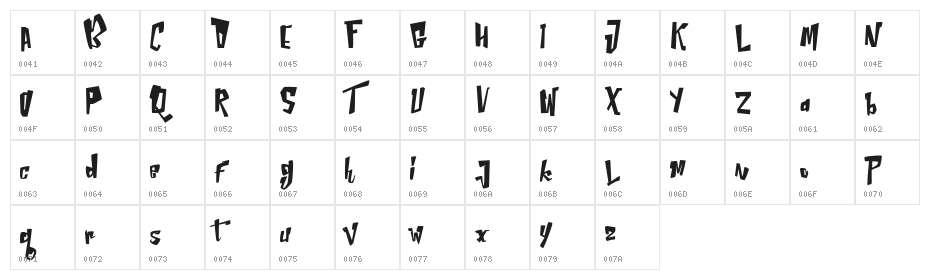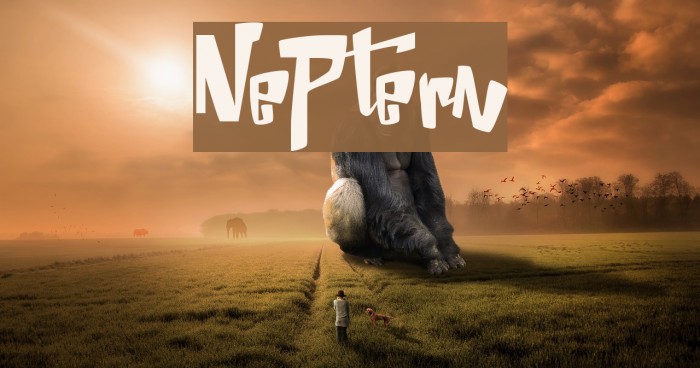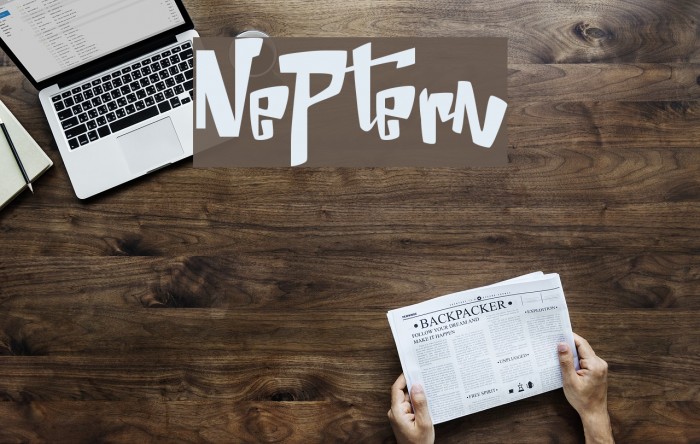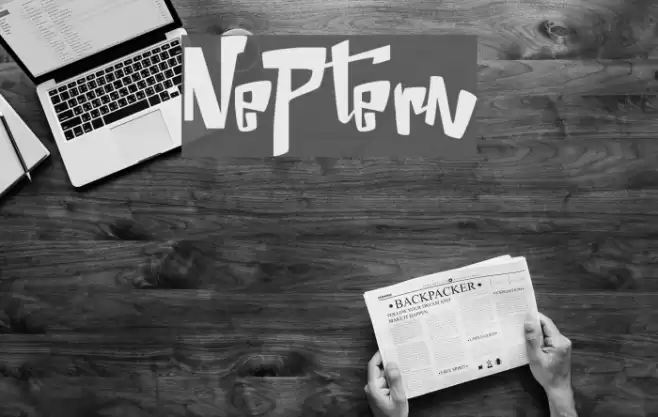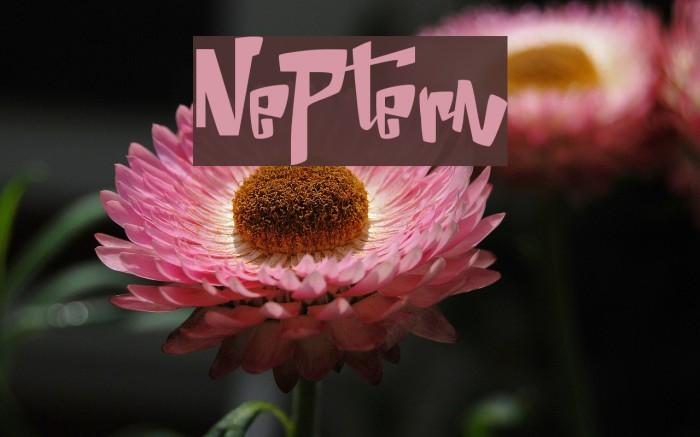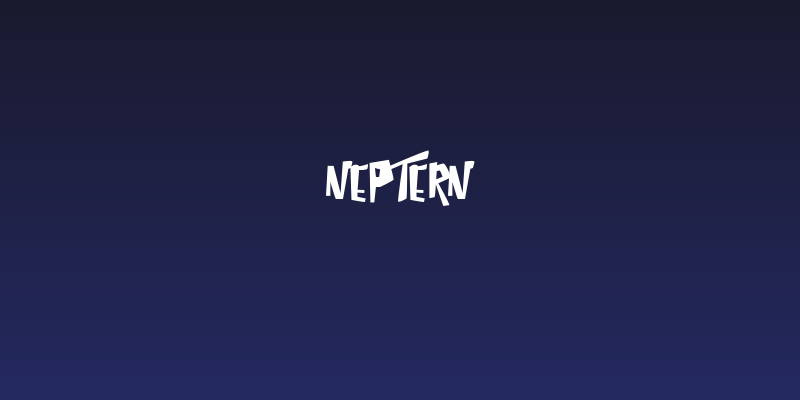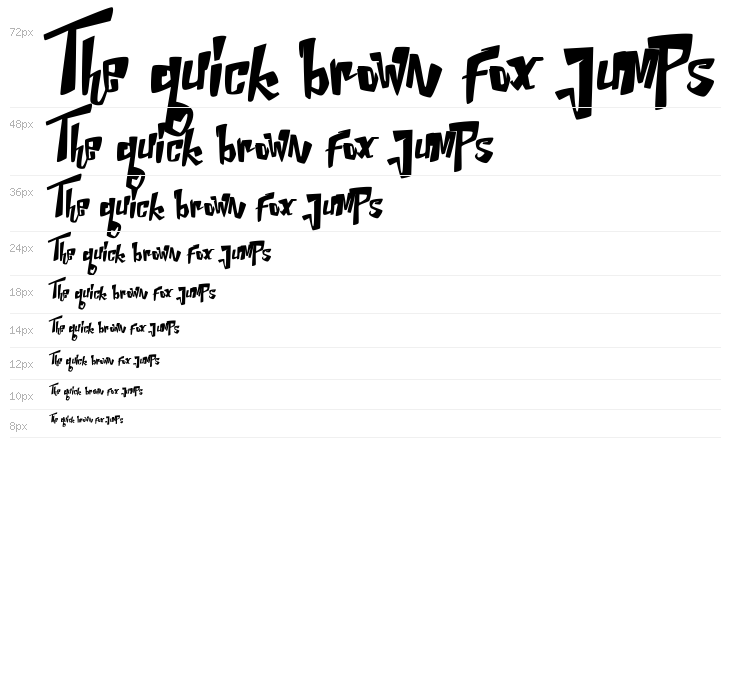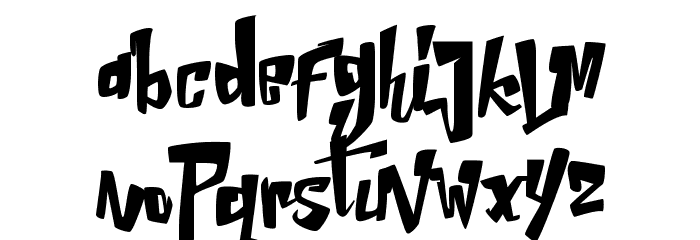
Neptern Font
Neptern Description
This font features a bold and dynamic style with an edgy, irregular design. The letters are characterized by sharp angles and varying widths, creating a sense of movement and energy. The uppercase and lowercase letters maintain a consistent theme, with exaggerated curves and points that give a rebellious and artistic flair. The numbers and special characters follow the same aesthetic, ensuring a cohesive look across all elements. This font stands out with its unique and unconventional appearance, making it ideal for projects that require a strong visual impact.
| Proposed Projects | Ideal for music album covers, street art designs, edgy branding, and poster headlines. |